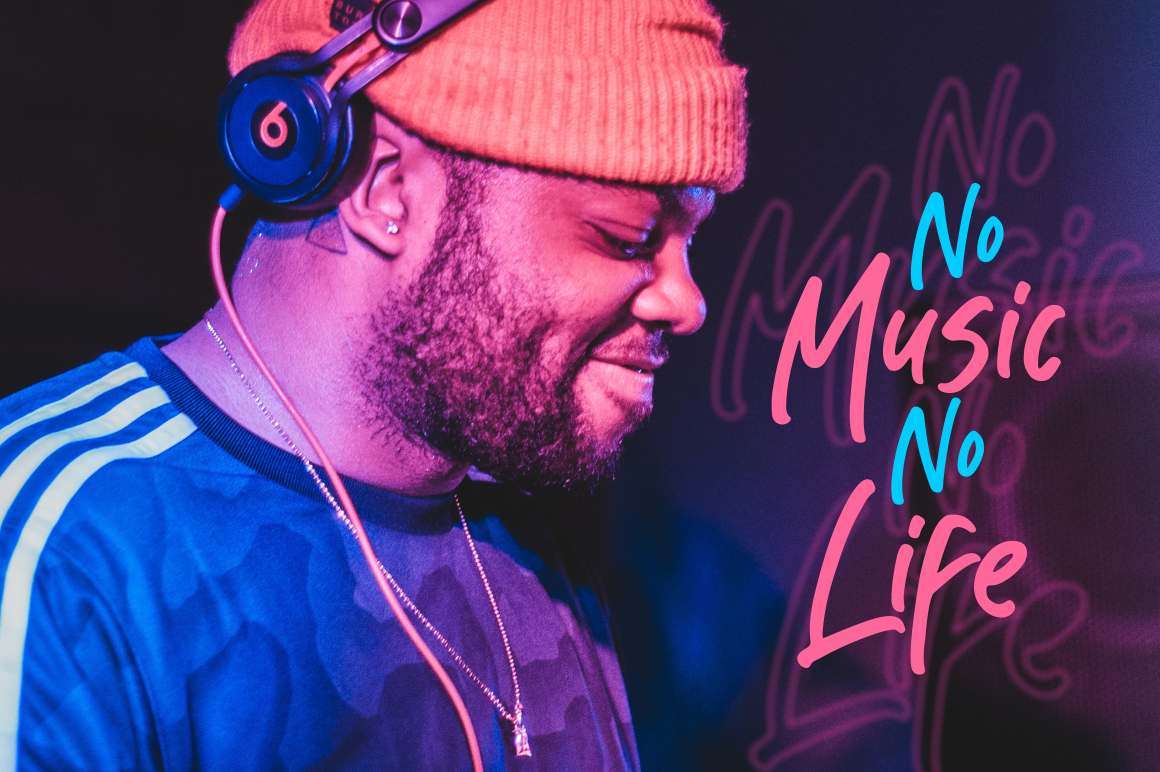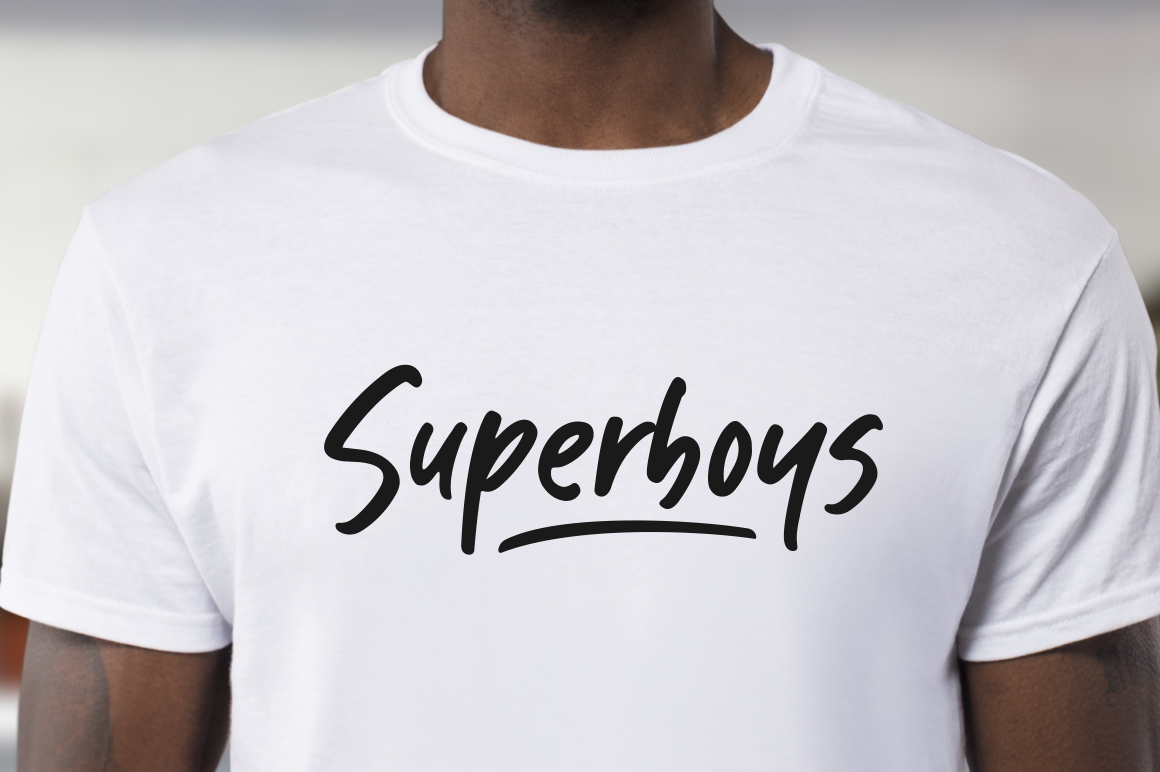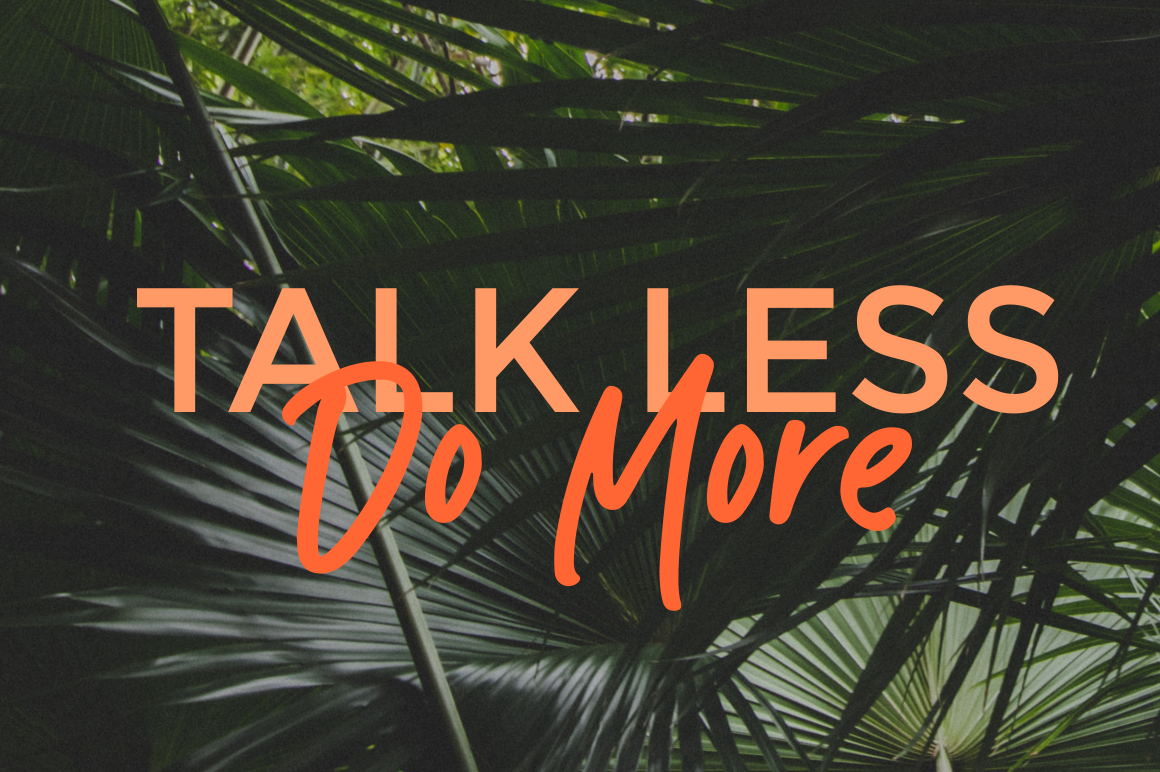
Kabut Hitam is a natural handwritten font, this font Is perfect for logo, social media posts, advertisements, product packaging, product designs, label, photography, watermark, special events or anything.
Kabut Hitam comes with full set of uppercase and lowercase letters, multilingual symbols, numerals, punctKabut Hitamuation.